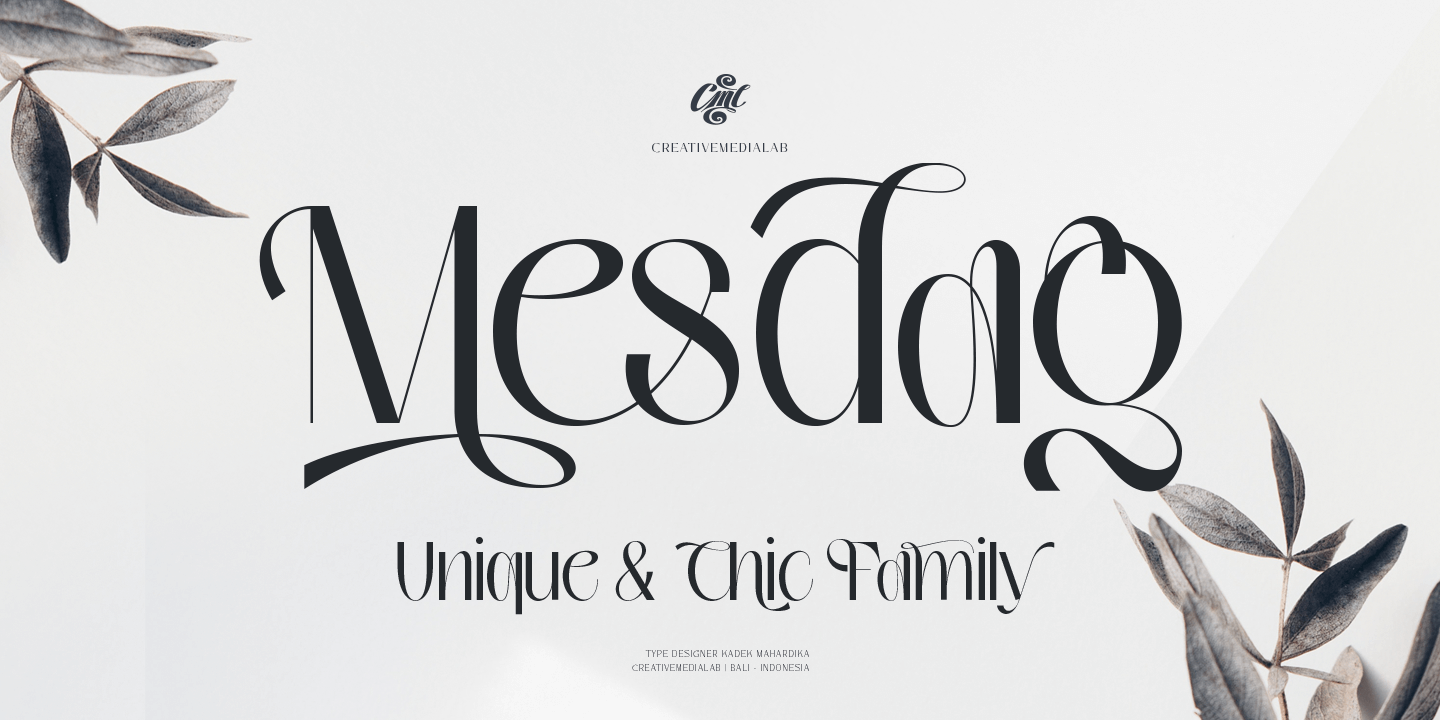
Mesdag Font Free Download is an elegant serif typeface that blends classic design elements with modern sensibility. Perfect for luxury branding, editorial layouts, invitations, logos, and packaging, this font offers a refined and sophisticated touch to your creative projects. Mesdag Font’s balanced proportions and smooth curves make it versatile, ideal for both print and digital applications.
With Mesdag Font Free Download, you’ll receive a complete set of uppercase letters, lowercase, numbers, and essential punctuation, providing flexibility for various design needs. Whether you're working on high-end branding, crafting stylish editorial content, or developing refined promotional materials, this font ensures readability while maintaining an upscale aesthetic.
Add elegance and sophistication to your designs with Mesdag Font Free Download. Its timeless style makes it the perfect choice for projects that require a refined, professional, and stylish appearance.